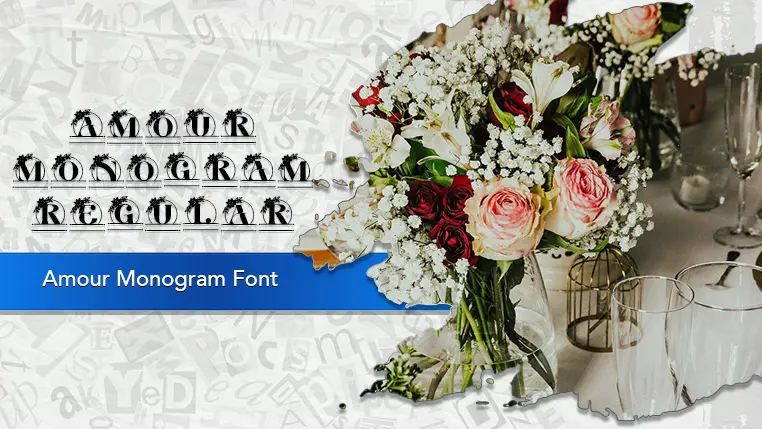
The Amour Monogram font family may be ideal for you if you enjoy working on an artistic design project. The lively, expressive look of this typeface, which was created by Dm Letter Studio, makes it ideal for Wedding Invitations and Stationery. It can be used to create logos and branding for businesses that specialize in custom products like jewelry, bags, or engraved items. The interweaving letters make it suitable for creating unique wall art, decorative pillows, or embroidered designs for home decor. The font's design is specifically suited for creating elegant symbols that can be embroidered onto fabric or engraved onto metal, wood, or glass. and other light-hearted visual projects.
Regular are the one primary font styles of the Amour Monogram font family. You may build dynamic, visually appealing text layouts with the distinct flair that each style offers. With crisp, readable lines and a relaxed tone.